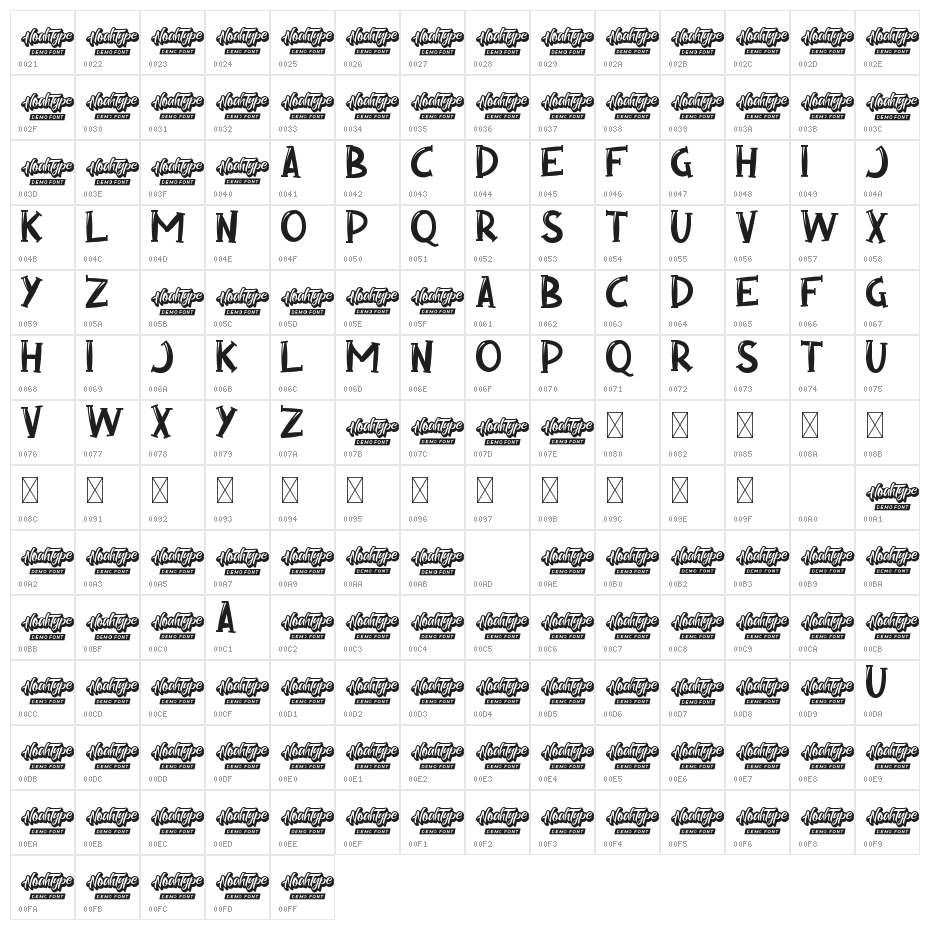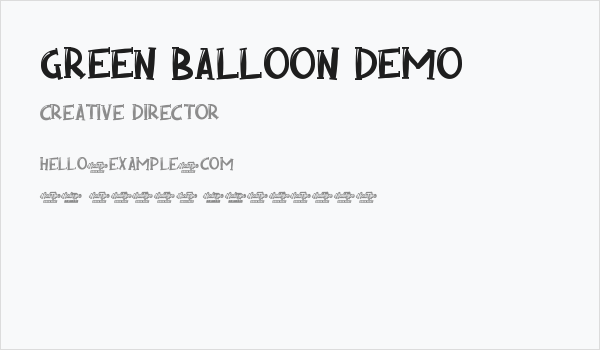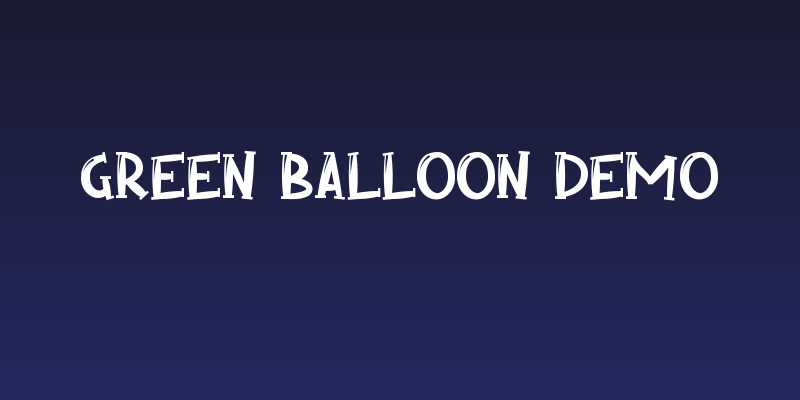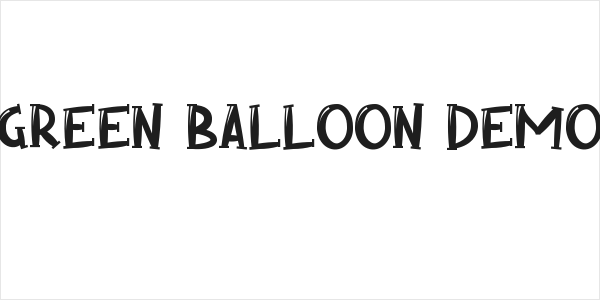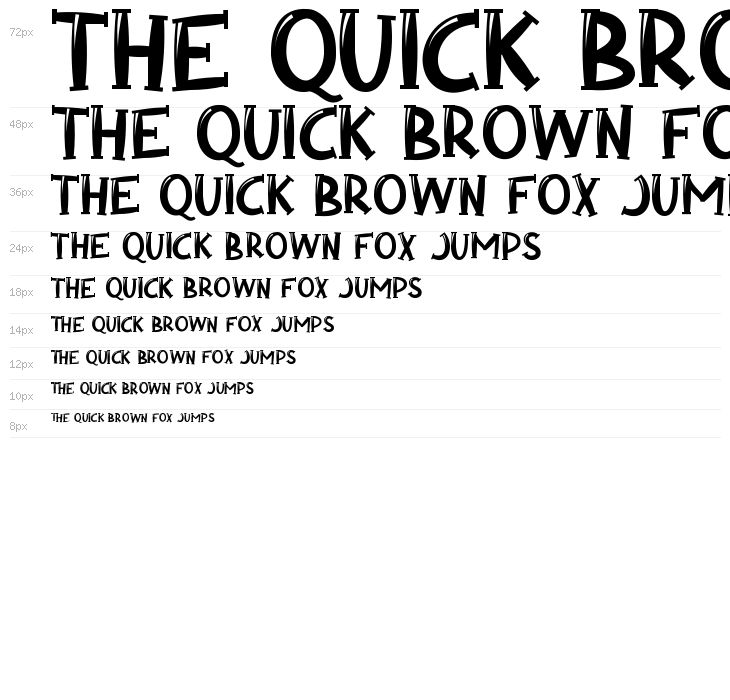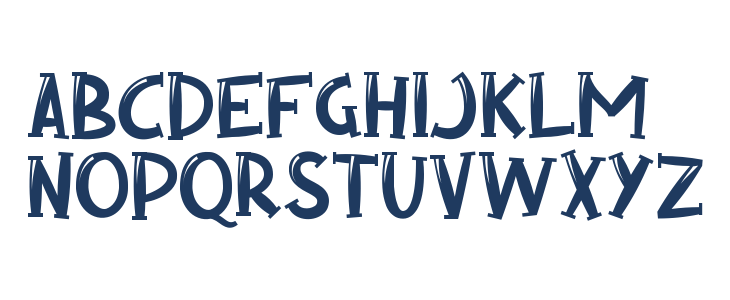
Green Balloon Demo Font
Green Balloon Demo Description
This font features a playful and whimsical style, characterized by its bold and slightly irregular letterforms. The strokes are thick and have a hand-drawn quality, giving it a casual and friendly appearance. The letters are slightly tilted, adding to the dynamic and lively feel. The overall design is reminiscent of comic book lettering, making it suitable for informal and fun projects. The uppercase and lowercase letters maintain a consistent style, and the numbers and special characters are designed to match the playful aesthetic.
| Overall Style | Playful, Comic |
| Proposed Projects | Ideal for children's books, comic strips, playful branding, and event posters. |